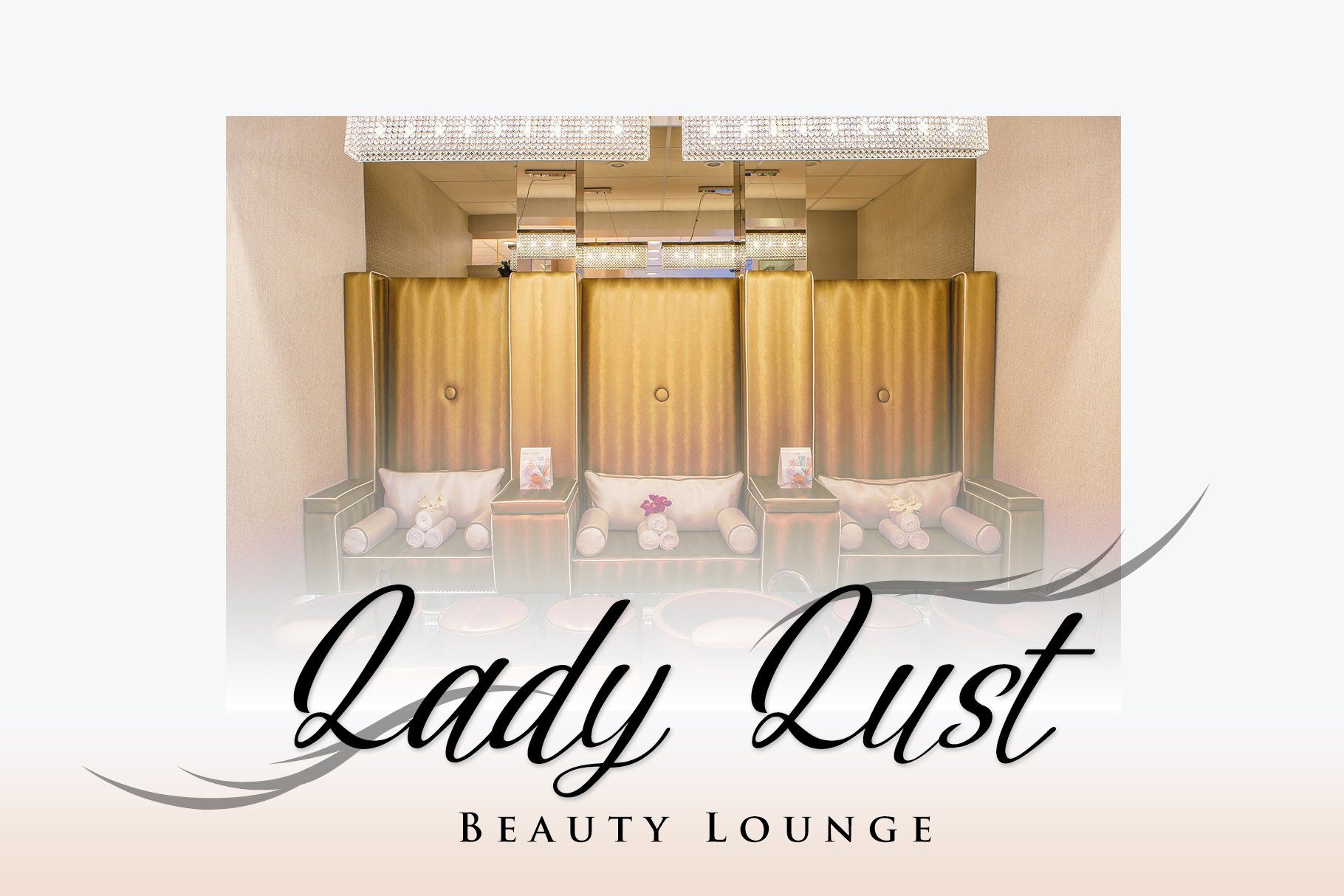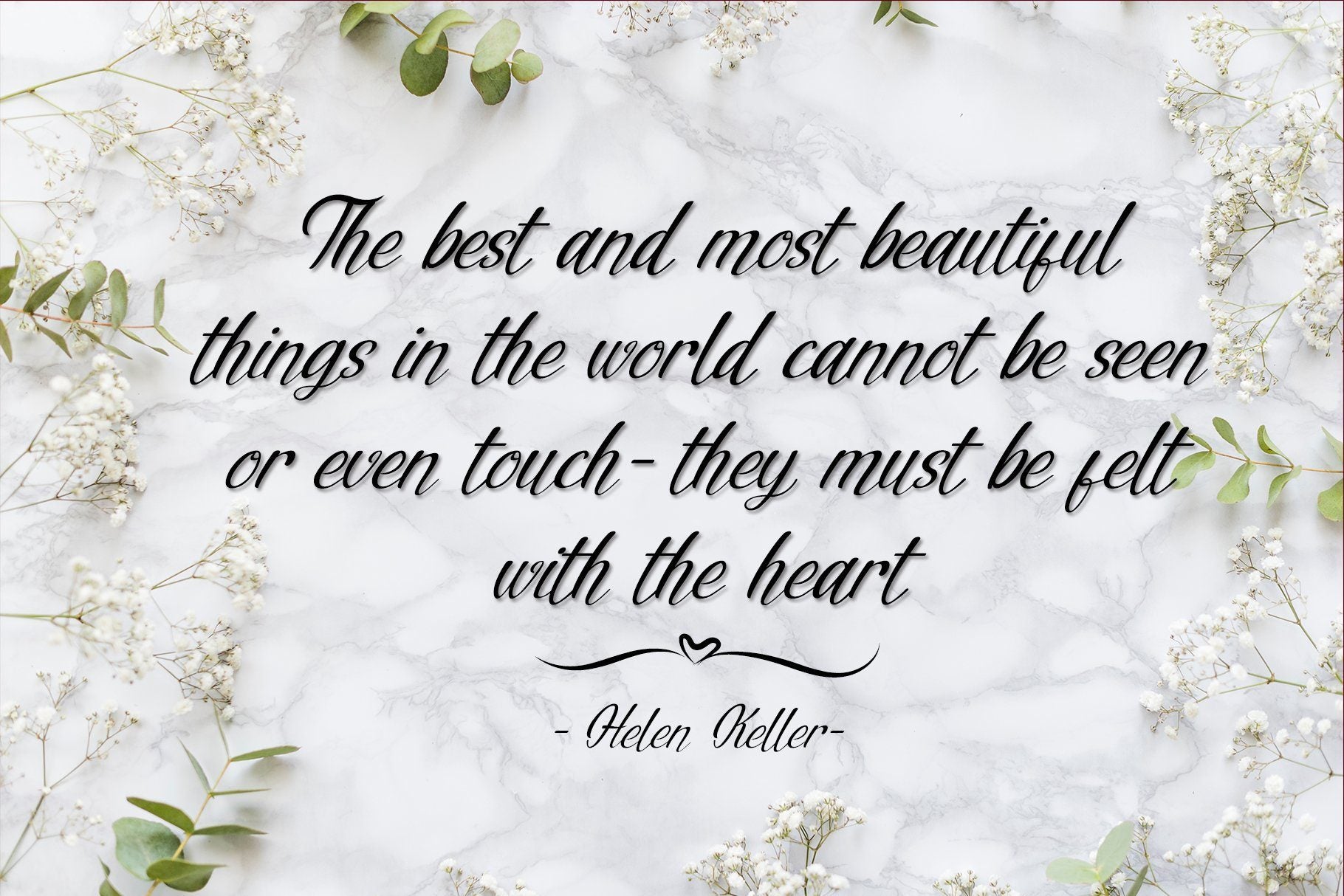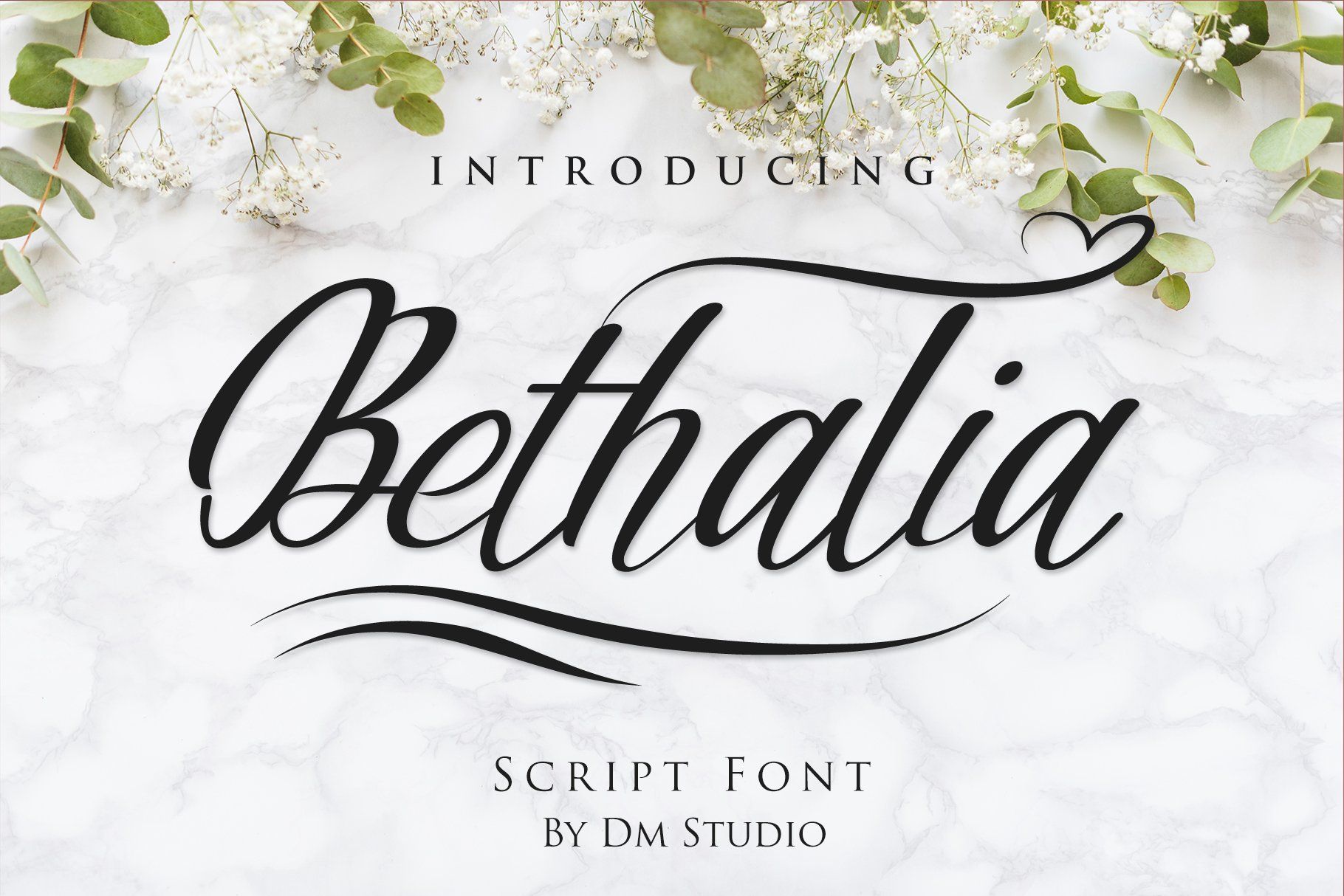
About Bethalia Script Font
Bethalia Script is a simple, clean, casual script font. Suitable for logo, brand, packaging, signage, quotes, and some feminine designs, girly stuffs, etc. Also comes with extra underline swashes to make it more beautiful. Features : Uppercase, lowercase Numerals Symbols & Punctuations Multilingual Supports Extra 26 Swashes Files : Bethalia OTF, TTF, WOFF Bethalia Swash OTF, TTF, WOFF Thank you for your purchase and supports, happy creating!